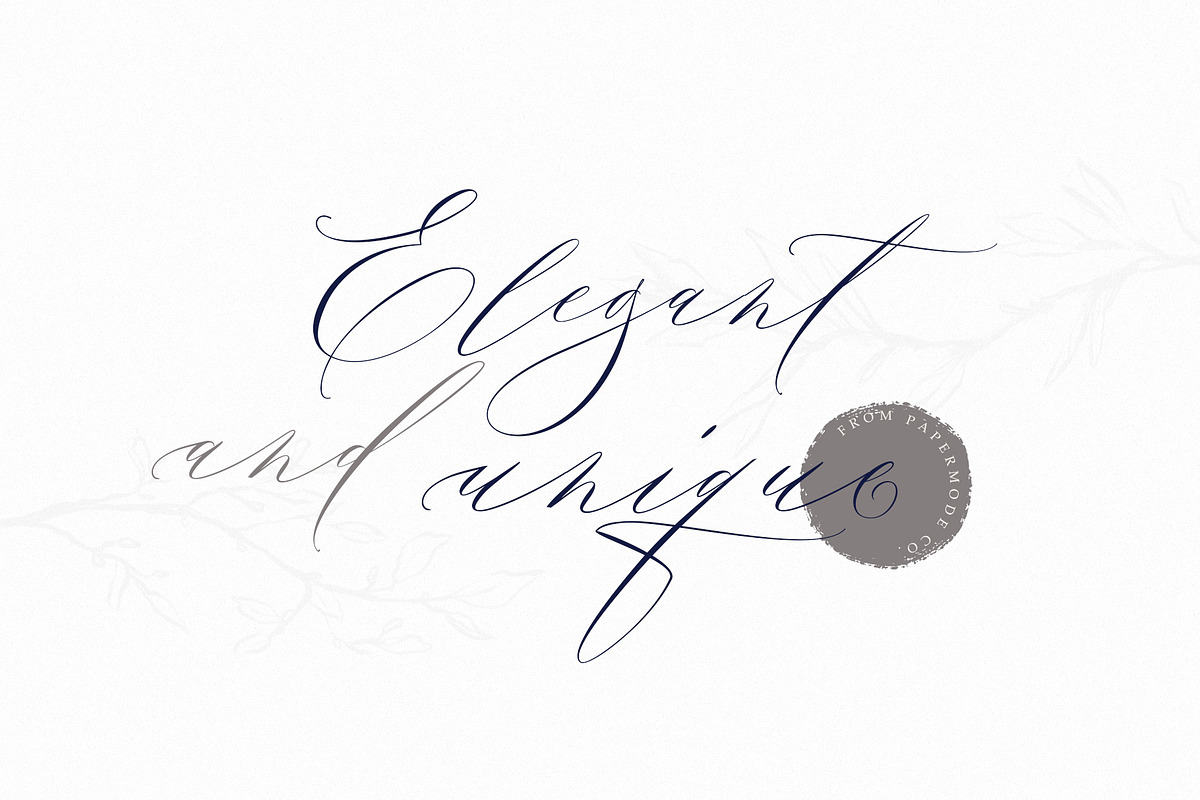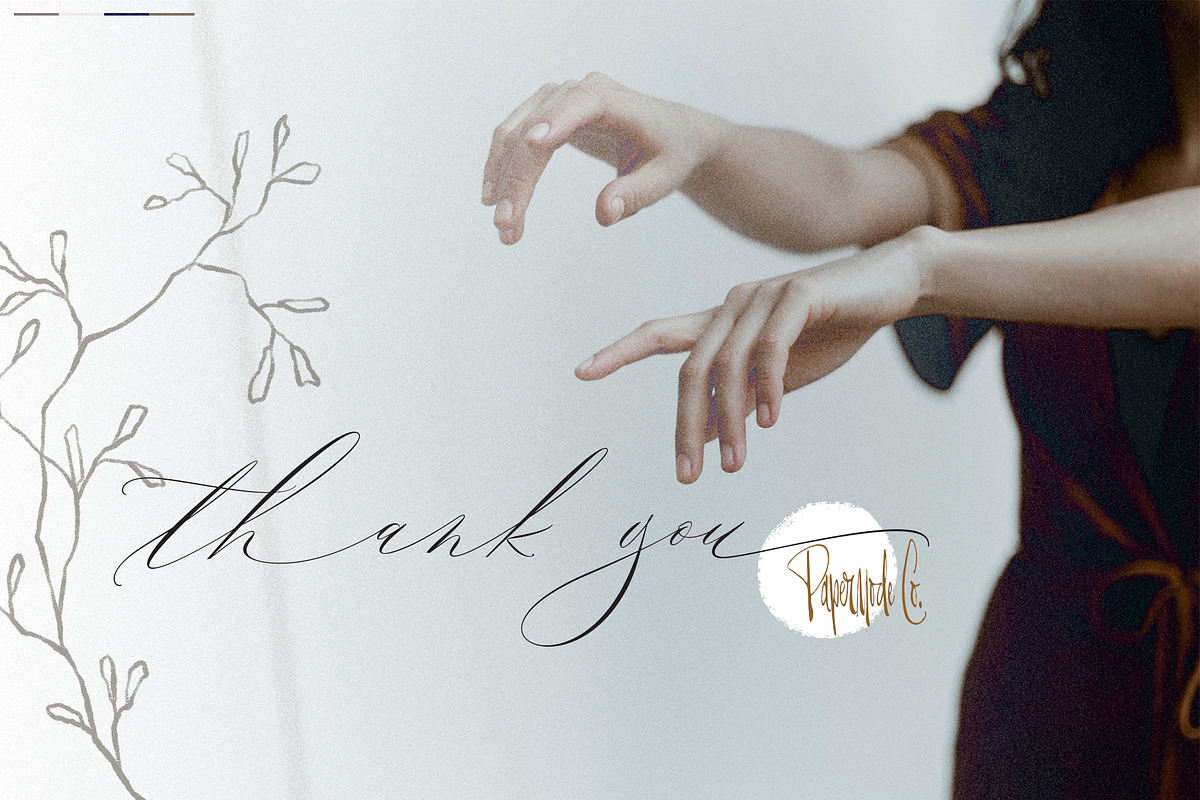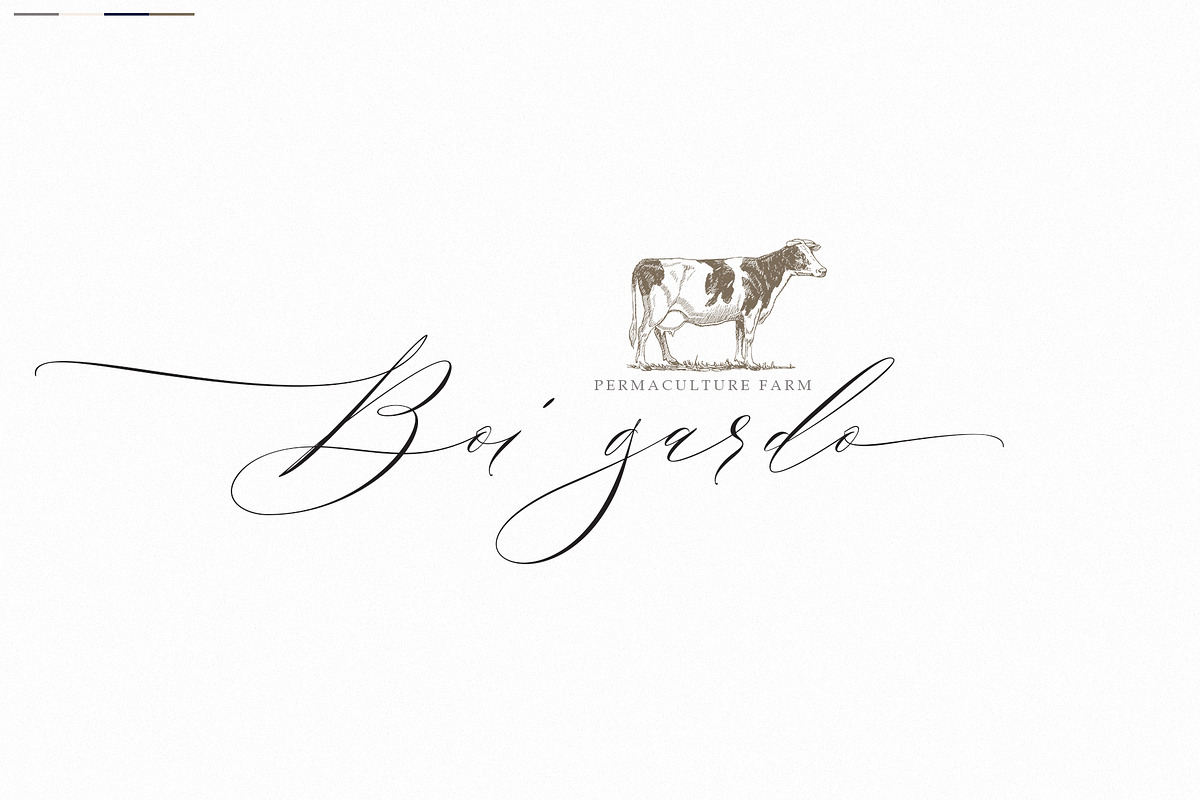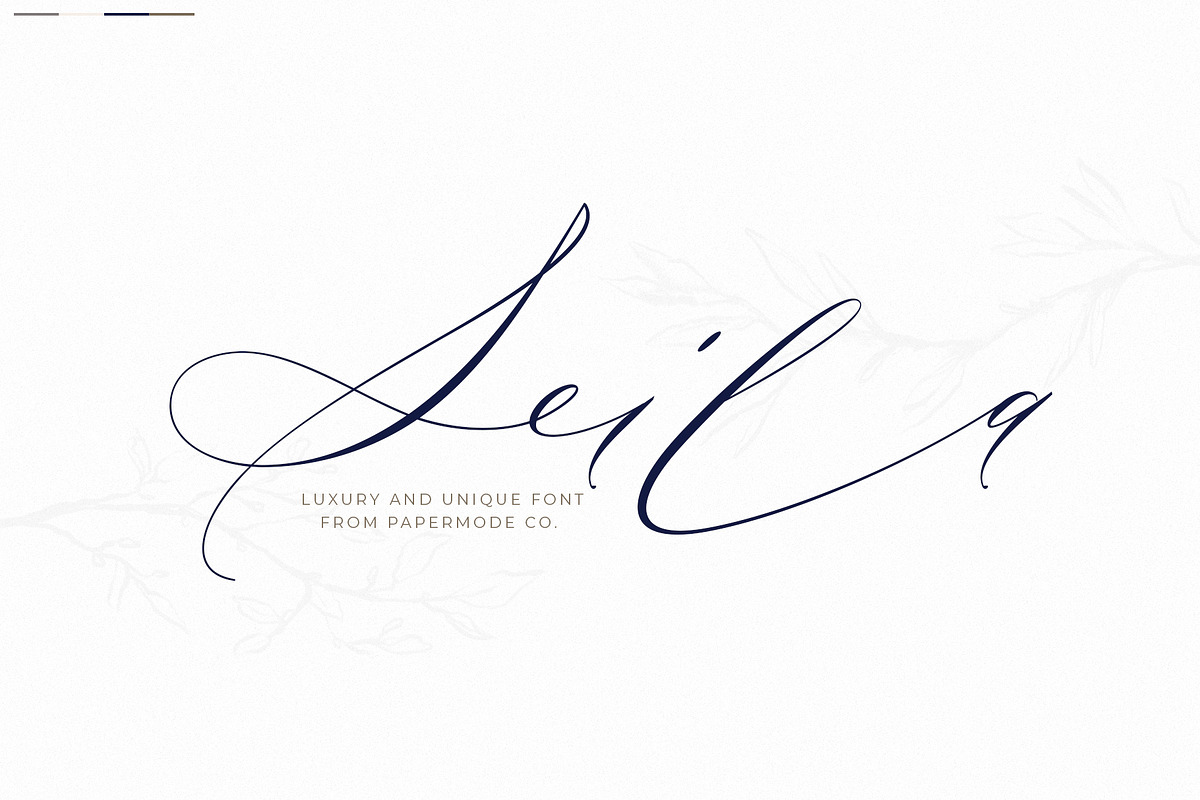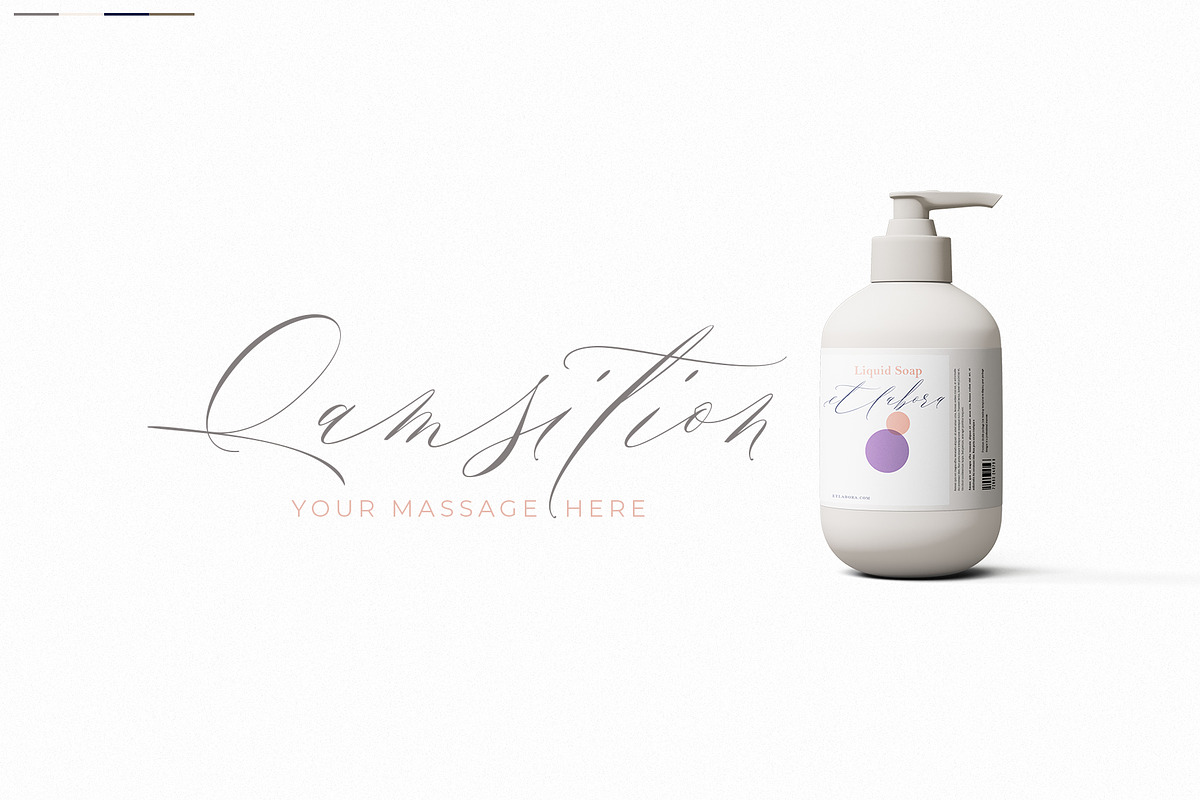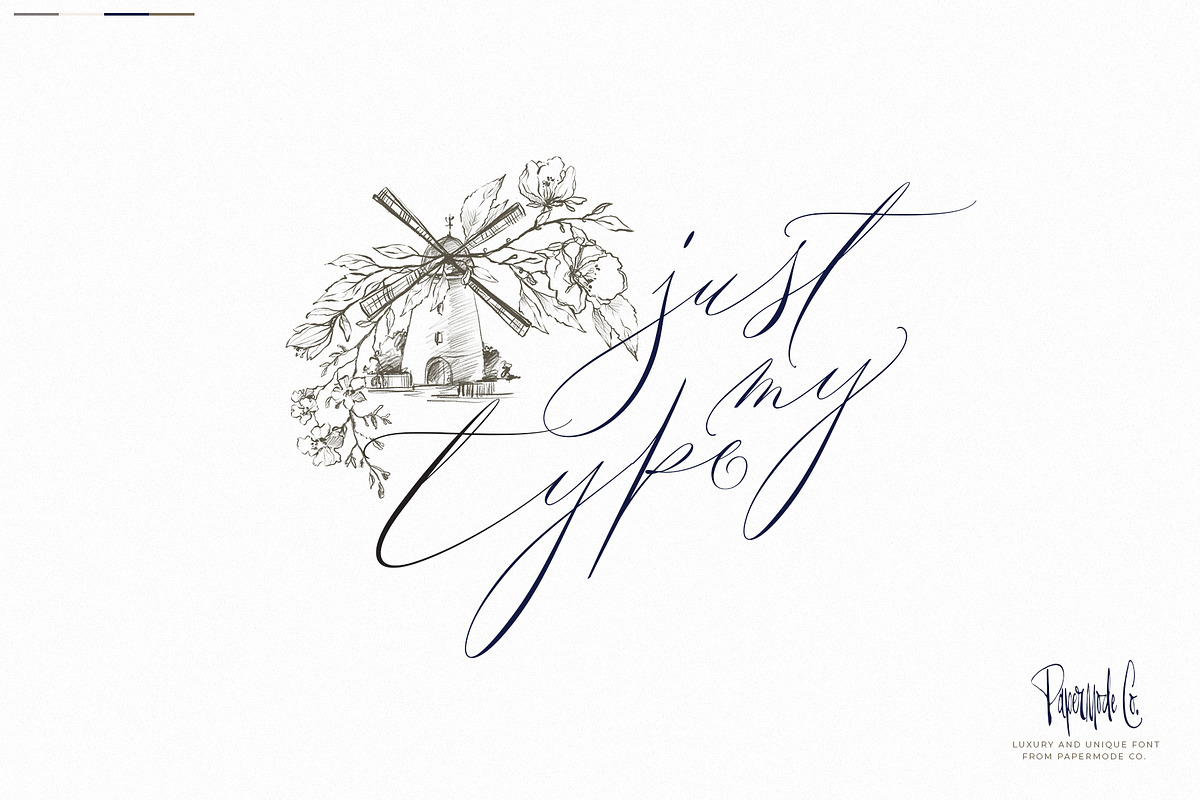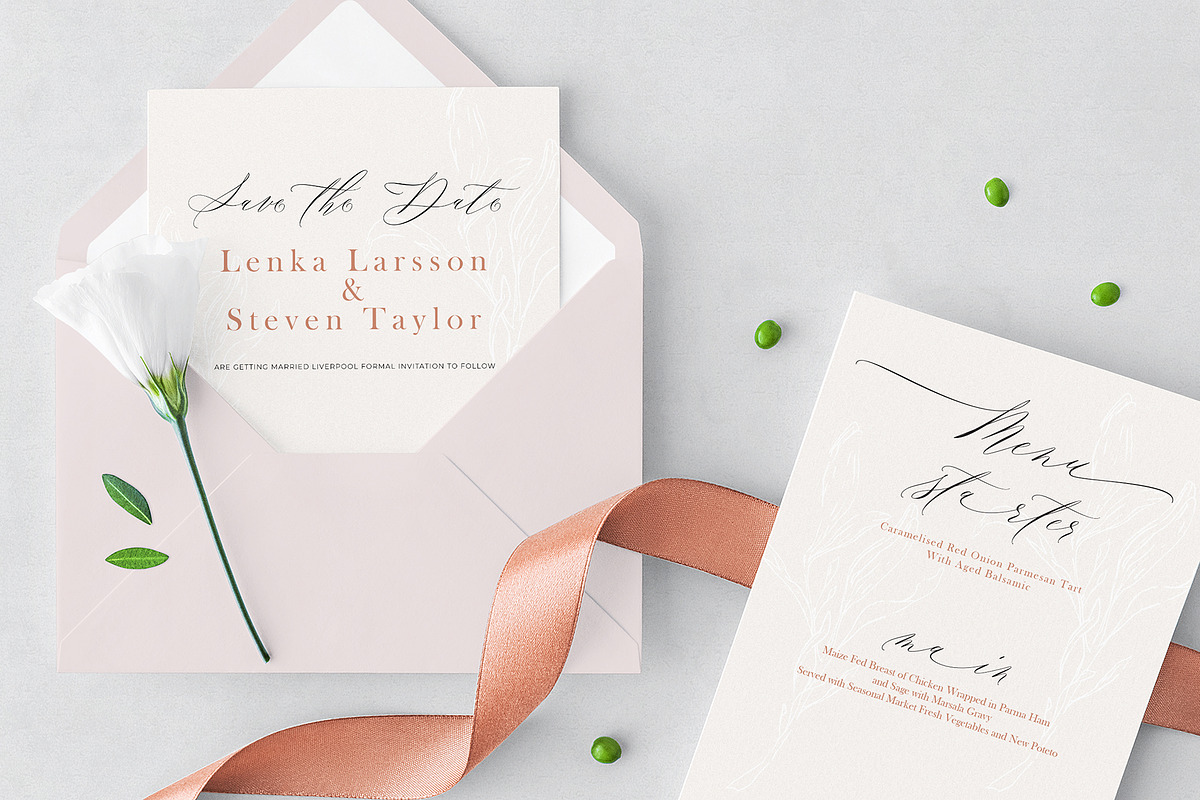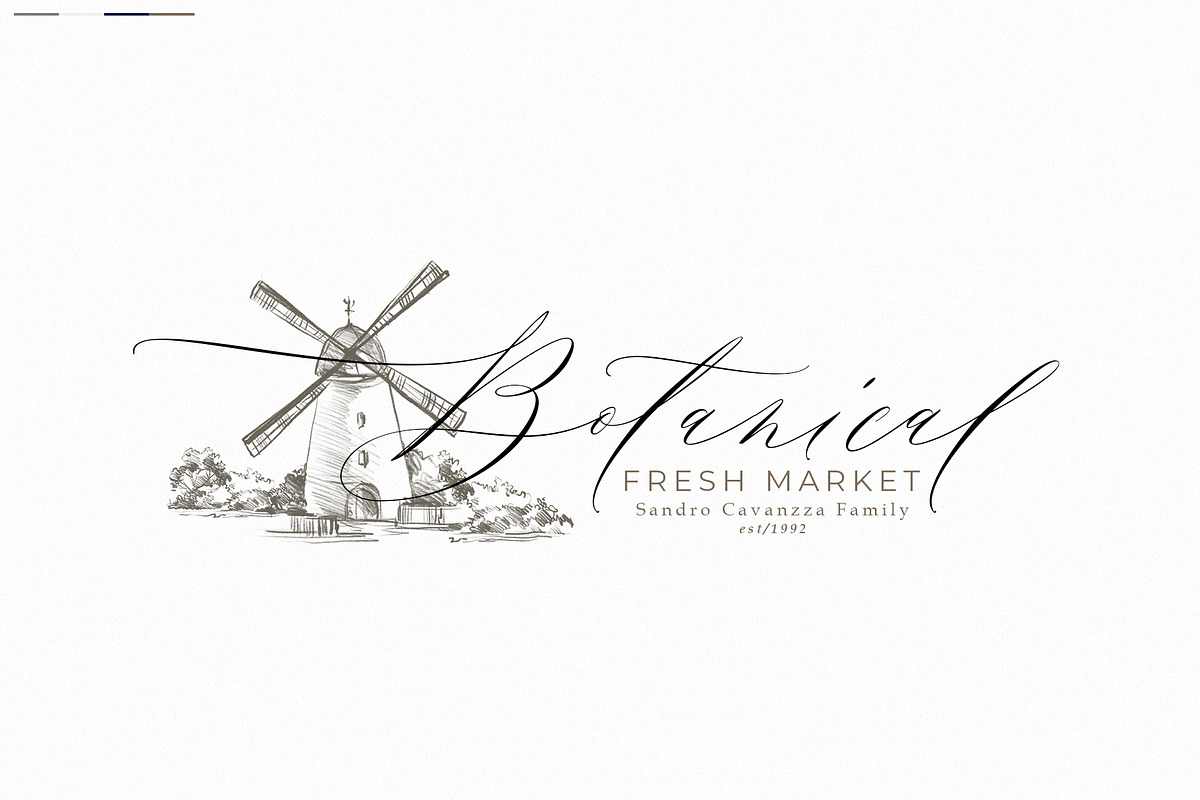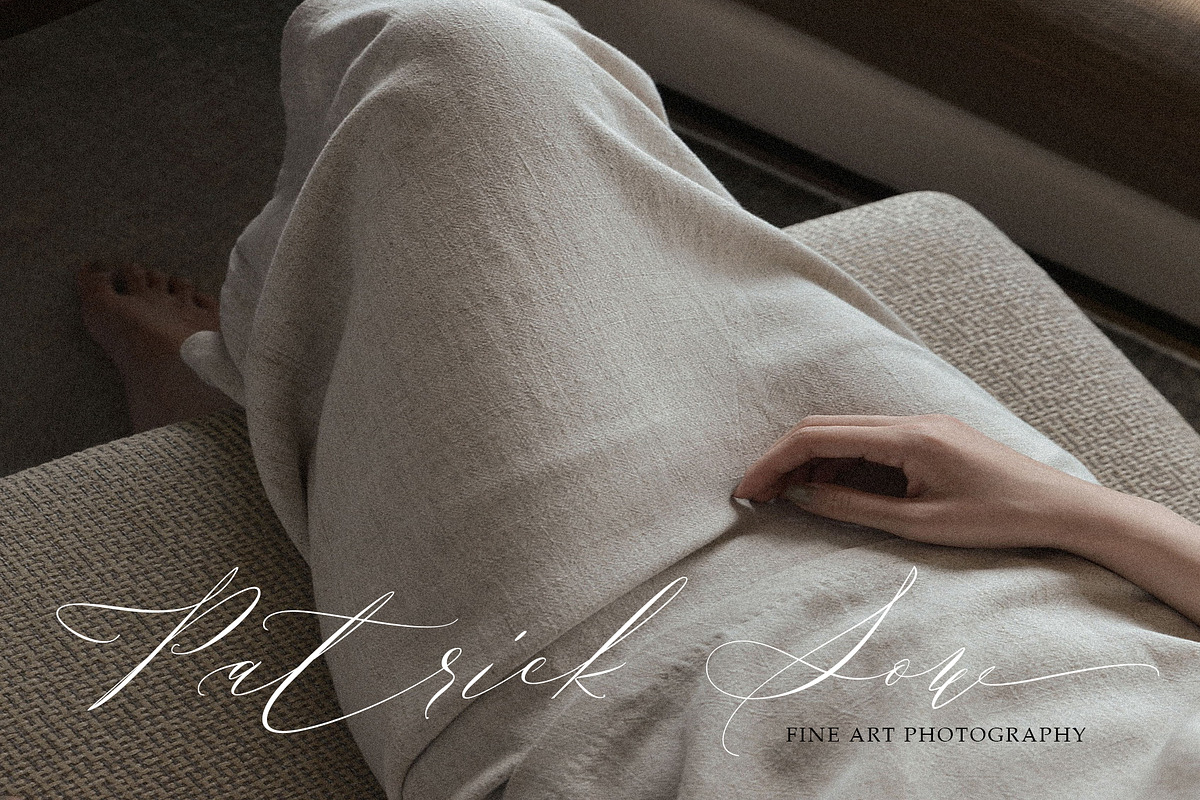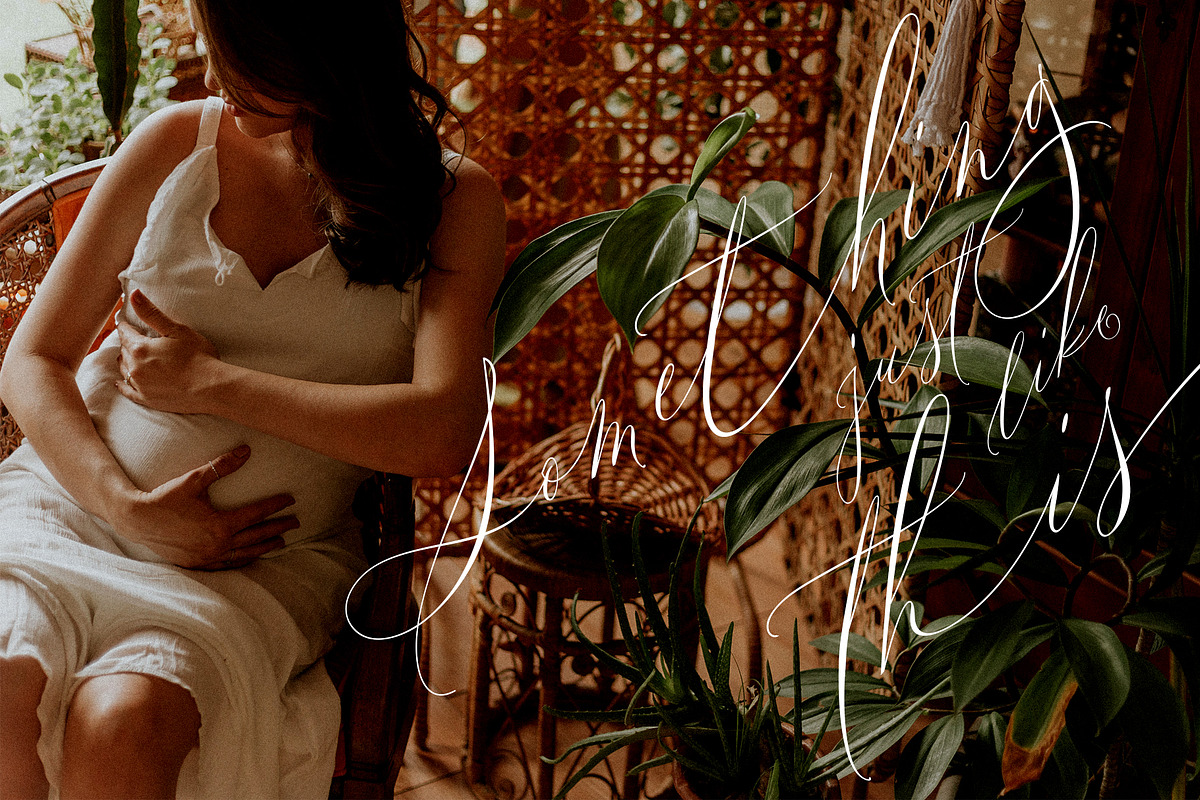
Seila
Seila is an luxury and unique calligraphy font. Carefully designed to work together in harmony that makes it perfect for wedding media, book covers, greeting cards, logos, branding, business cards and certificates, even for any design work that requires unique, formal or luxury.
Try Seila, enjoy the richness of OpenType features and let her fun and elegant excitement make you happy and enhance your creativity! You can use this font very easily.
Included multilingual support and special ligatures